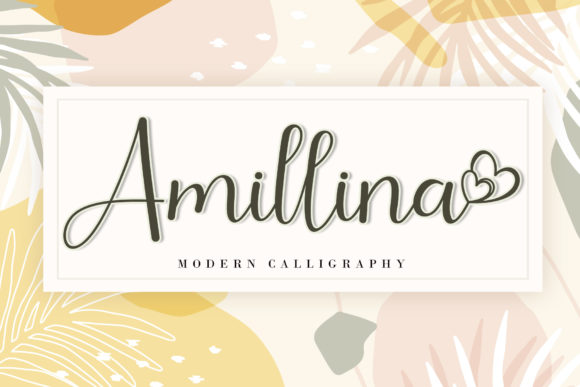
The Amillina Font: A Delicate, Elegant, and Flowing Handwritten Font
Amillina is a delicate, elegant, and flowing handwritten font that has beautiful and well-balanced characters. It’s perfect for a wide range of designs, from wedding invitations to brand logos, and it instantly elevates any project. In this article, I’ll share my experience with the Amillina font, its features, and how to make the most of it in your designs.
- ✨ Delicate and elegant strokes that add a touch of sophistication to any design
- ✅ Well-balanced characters that make it easy to read and understand
- 💫 PUA encoded, making it easy to access all glyphs and swashes
- 🎨 Versatile and can be used in a wide range of designs, from digital to print
The Designer Inspiration Behind Amillina
The Amillina font was inspired by the beauty of handwritten scripts. Its creator wanted to craft a font that was both elegant and accessible, perfect for designers and crafters alike. The result is a font that’s both sophisticated and versatile, with a wide range of uses.